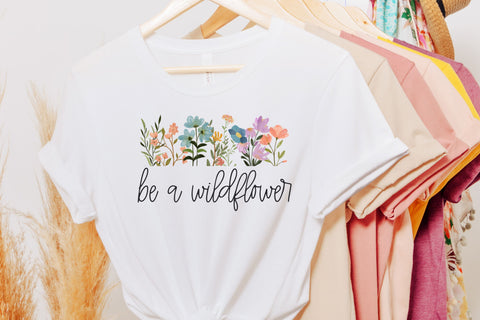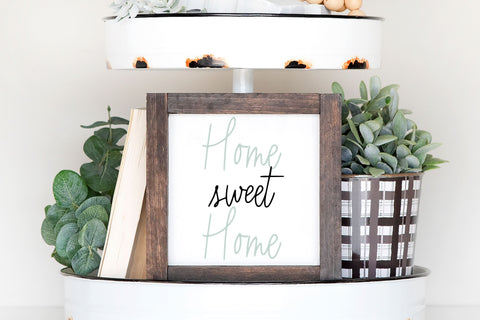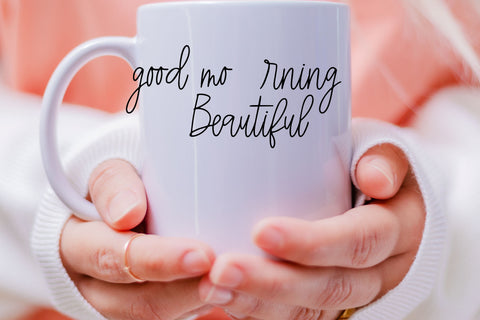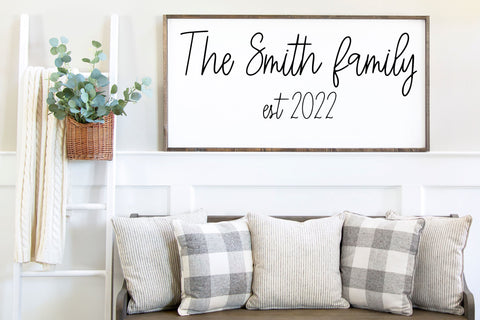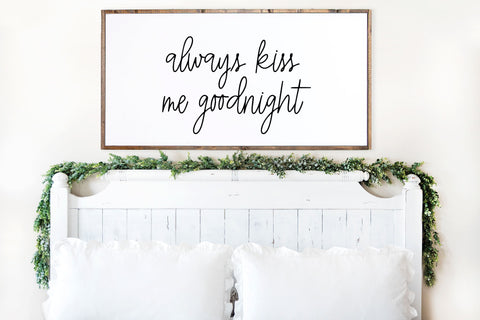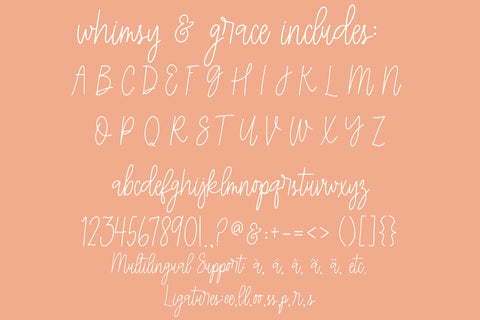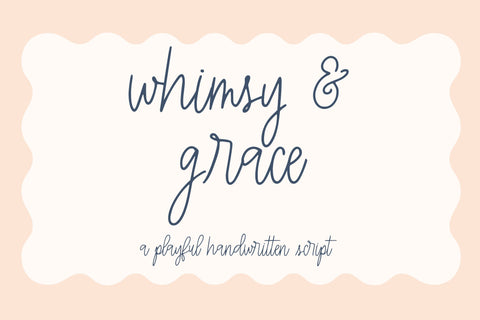
Whimsy & Grace, Cute Handwritten Font for Cricut, Cursive Script Handwriting
Introducing Whimsy & Grace, our adorable handwritten font for Cricut & more, perfect for all your creative projects!  With its elegant curves and smooth strokes, our cute script font brings a delightful touch to invitations, greeting cards, and personalized crafts. Our script font is compatible with Cricut SVGs, Goodnotes, Procreate, and many other programs. Transform your designs into stunning works of art with our versatile Cute Script Font, the ultimate choice for anyone seeking a captivating and expressive typeface for their projects.